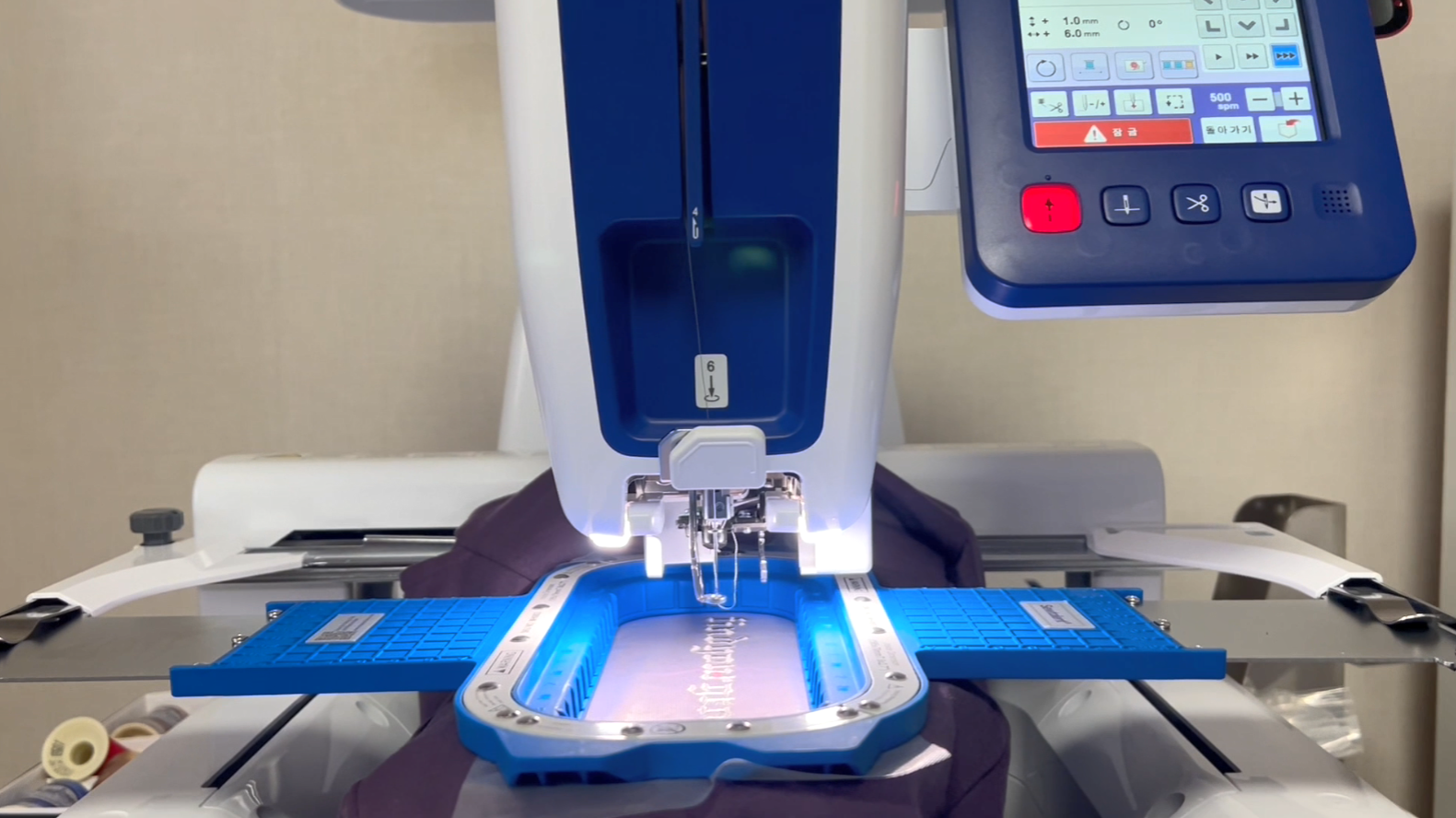
Ultimate Guide to Embroidered Name Designs: Patterns, Fonts & Personalization
1. Introduction: The Art of Personalized Embroidery
There’s something undeniably magical about seeing your name—or the name of someone you love—beautifully stitched into fabric. Name embroidery transforms everyday items into cherished keepsakes, infusing gifts and décor with a personal touch that speaks volumes. Whether you’re commemorating a new baby, celebrating a wedding, or simply adding flair to home décor, embroidered names carry deep emotional significance. In this guide, we’ll explore how to find the perfect machine embroidery name designs, choose the right fonts and embellishments, and master the techniques that turn simple stitches into unforgettable works of art. Ready to unlock the secrets of personalized embroidery? Let’s dive in.
2. Finding Machine Embroidery Name Designs: Sources & File Types
Machine embroidery name designs have blossomed into a vibrant marketplace, offering endless opportunities for personal expression and gifting. But where do you start when searching for the perfect downloadable or purchasable design file? Let’s break down the best sources, file formats, and practical tips for getting started.
2.1 Top Marketplaces for Name Embroidery Files
The world of machine embroidery name designs is a thriving ecosystem, with options ranging from artisan boutiques to expansive digital libraries. Here’s where you’ll find the best selection:
2.2 Understanding File Formats & Compatibility
Before you hit “download,” make sure your chosen design is compatible with your embroidery machine. Here’s what you need to know:
Hoop Size Considerations:
• Most designs are offered in standard sizes to fit common hoops: 4x4, 5x7, and 7x5 inches. Some sellers provide files in multiple dimensions (e.g., 3–7 inches) to suit your project needs.
Customization Limitations:
• Here’s a crucial heads-up: Many designs are optimized for their original size. Sellers often warn that resizing, converting, or editing files can void quality guarantees. Stretching a design beyond its intended scale can lead to distortion or stitch issues—so always use the provided sizes for best results.
Seasonal Trends:
• The name embroidery market is highly seasonal—expect fresh releases for holidays and celebrations, from Halloween to Christmas, ensuring your projects are always on-trend.
Community & Learning:
• Leading platforms go beyond sales, offering tutorials, project guides, and community forums to help you grow your skills and find inspiration.
3. Creative Inspiration: Fonts & Embellishment Techniques
Personalized name embroidery is more than just letters—it’s an art form that blends typography, color, and decorative flourishes to create something truly special. Let’s explore the fonts and embellishments that can make your designs stand out.